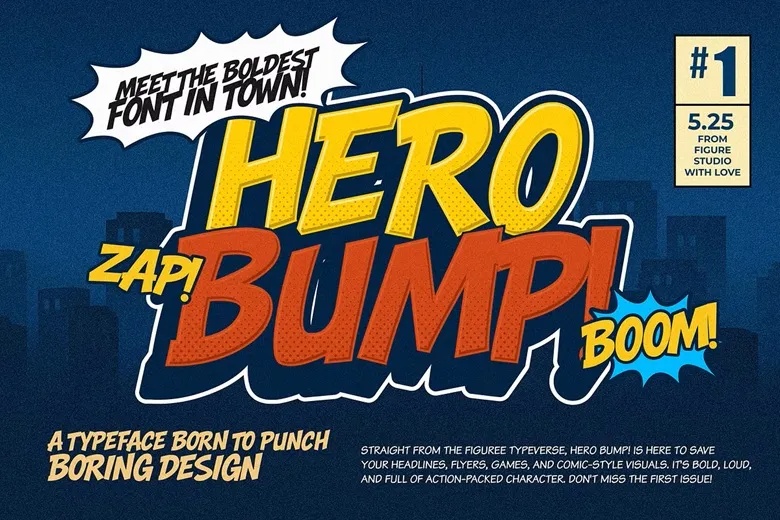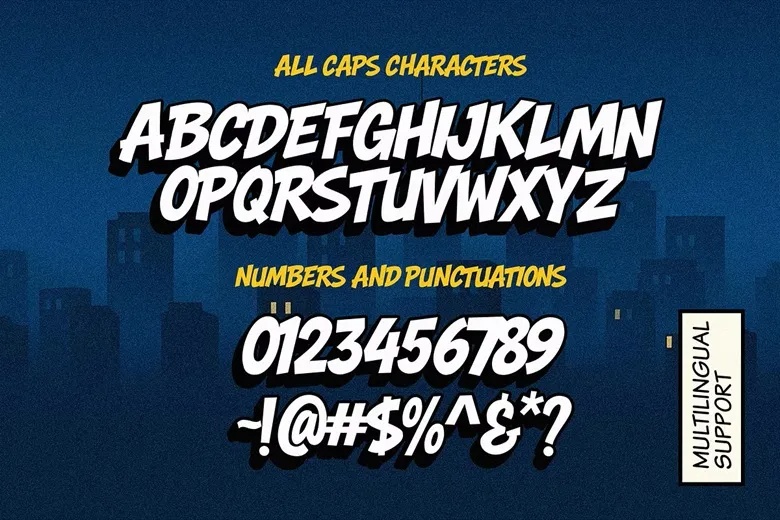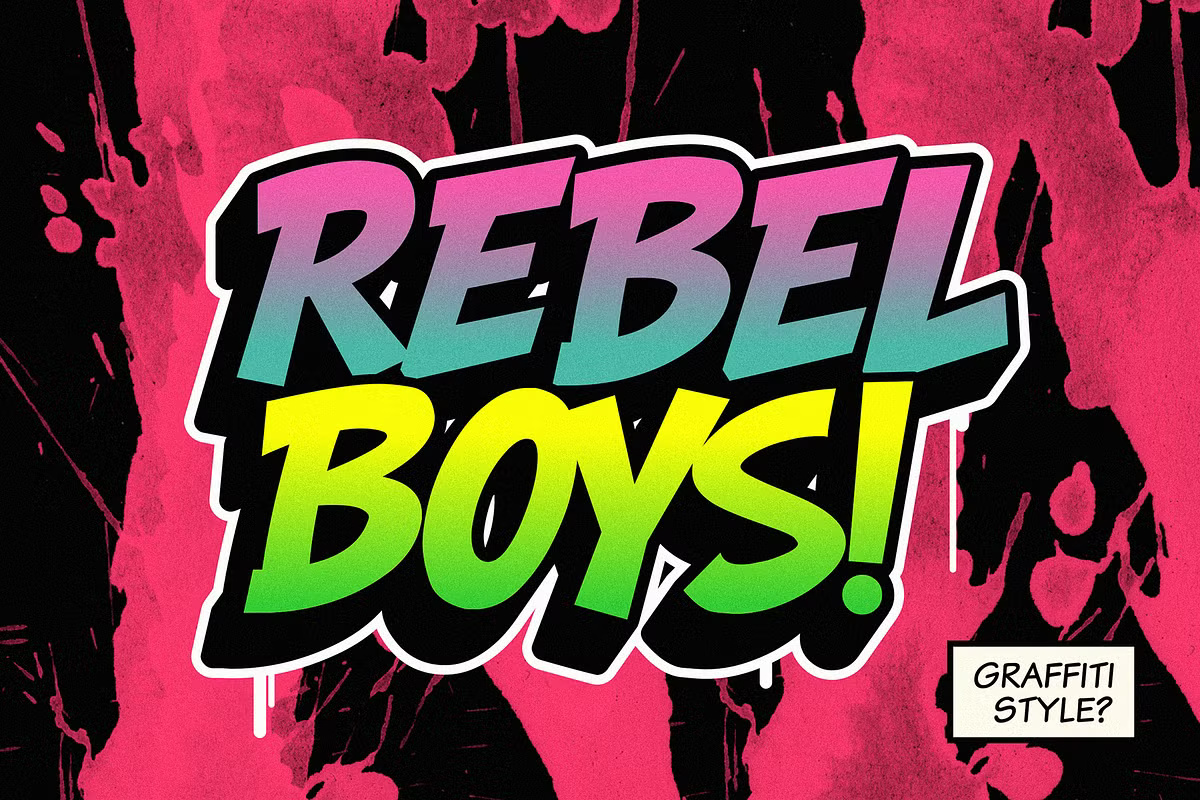
Hero Bump Font
Hero Bump is a bold, modern comic display font bursting with energy! Designed in an all-caps style, this typeface is the perfect companion for projects that need to scream, zap, and boom with fun.
Whether you’re working on children’s media, games, cartoons, packaging, or comic books, Hero Bump delivers unstoppable character in every letter. Now featuring a strong extruded style, it adds a dynamic push to its already powerful design.